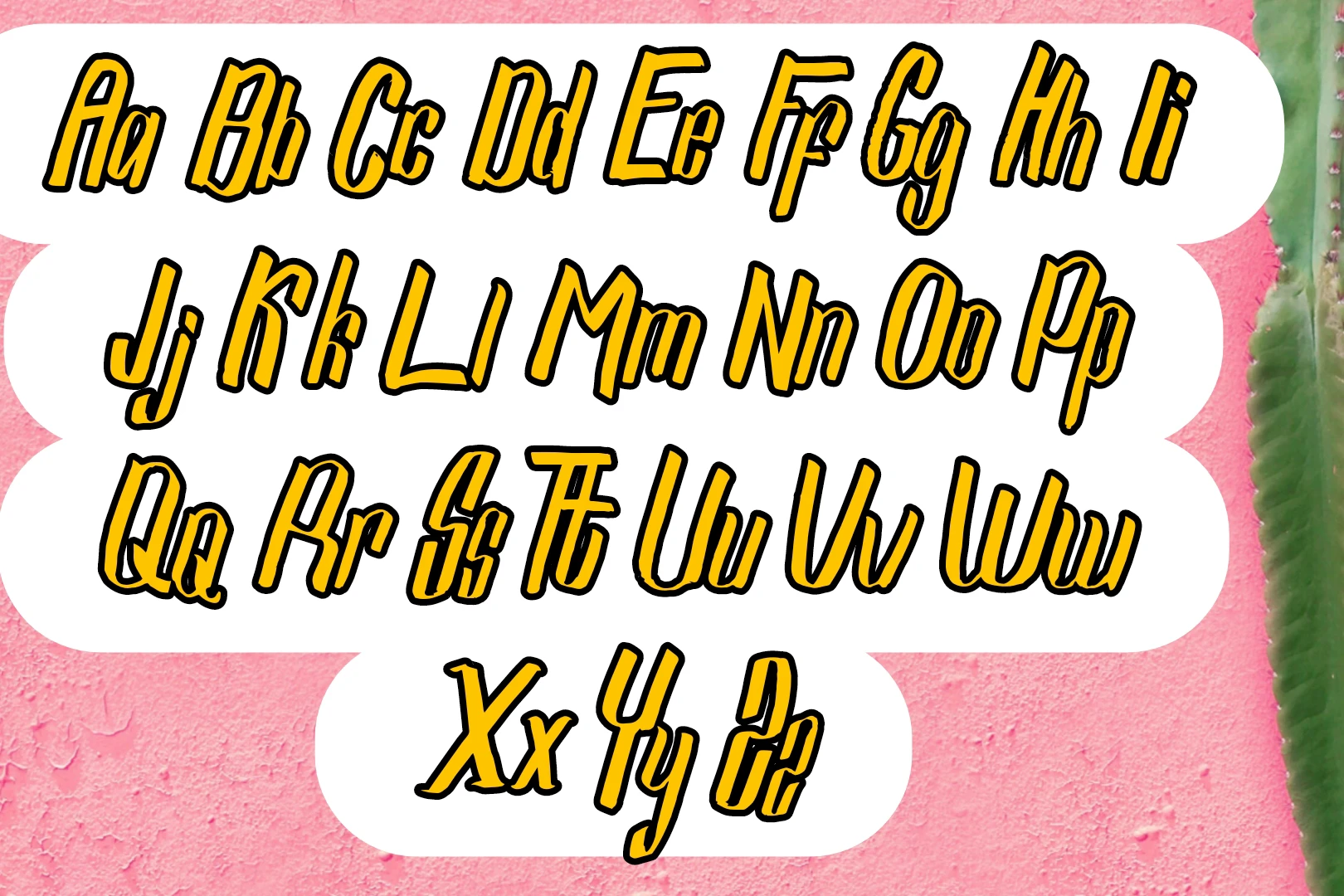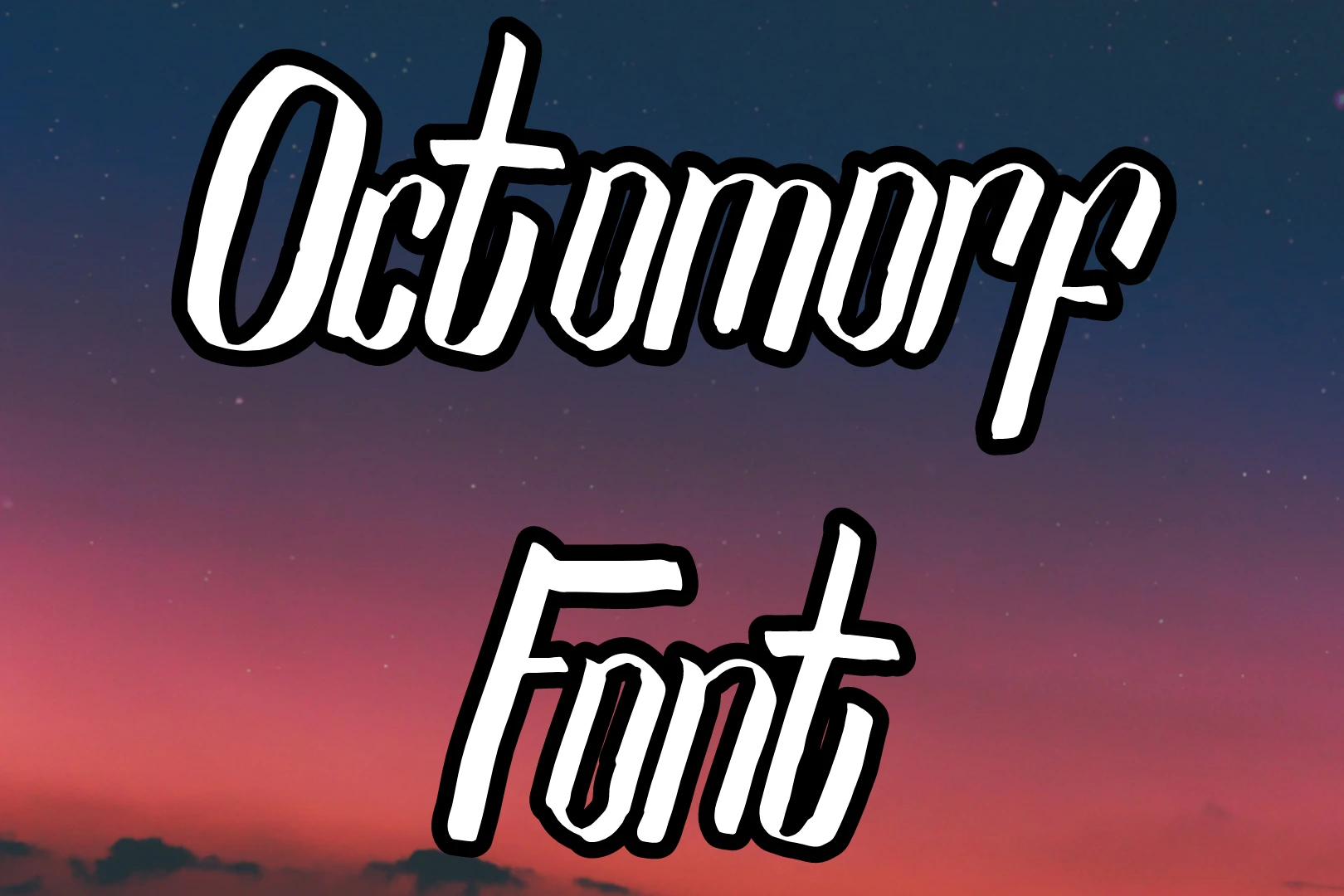
Octomorf Font is a masterfully crafted hand-drawn custom font by the visionary designer Muhammad Alif, which emerges as a testament to the intersection of artistry and typography. With its distinctive and captivating design, This font injects a breath of creativity into the world of fonts.
You can pair this font with Modestyle Script Font and make attractive projects. This unique typeface encapsulates the essence of individual expression, offering a visual journey beyond conventional letterforms. As we delve into the realm of Octomorf, we embark on a visual adventure that redefines the boundaries of typographic innovation.
Its clean and appealing texture makes it a versatile companion, allowing seamless pairing with other fonts like Breakfast and Chill Font for exceptional projects.
Usage of Octomorf Font
in the realm of graphic design, It find its stride, becoming an invaluable asset for crafting visually stunning promotional materials. From posters that demand attention to intricately designed flyers, Octomorf’s hand-drawn charm adds an unparalleled allure to headlines and titles, setting the tone for a memorable visual experience.
Its distinctive characters make it a compelling choice for headers and titles, infusing websites with a unique personality. Whether employed for branding purposes or to enhance the overall aesthetic, it transforms the digital space into a canvas of artistic expression.
Printed materials come alive with this font, as its artistic flair is channeled into brochures, booklets, and magazine layouts. The font’s ability to command attention through headings and subheadings elevates the impact of written content, creating a harmonious and engaging design that captivates readers.
On social media platforms, it takes center stage, bringing a touch of individuality to quotes, captions, and profile headers. Its adaptability makes it an ideal choice for those seeking a unique visual identity, allowing users to express their personality in a sea of digital content. You can combine this font with Cedar Street Font and make attractive projects.
This remarkable texture encompasses a diverse array of alphabet characters, including uppercase and lowercase letters, numerals, symbols, and unique structures. Additionally, it may feature various styles and weights such as bold, italic, and regular, offering a comprehensive toolkit for your creative endeavors.